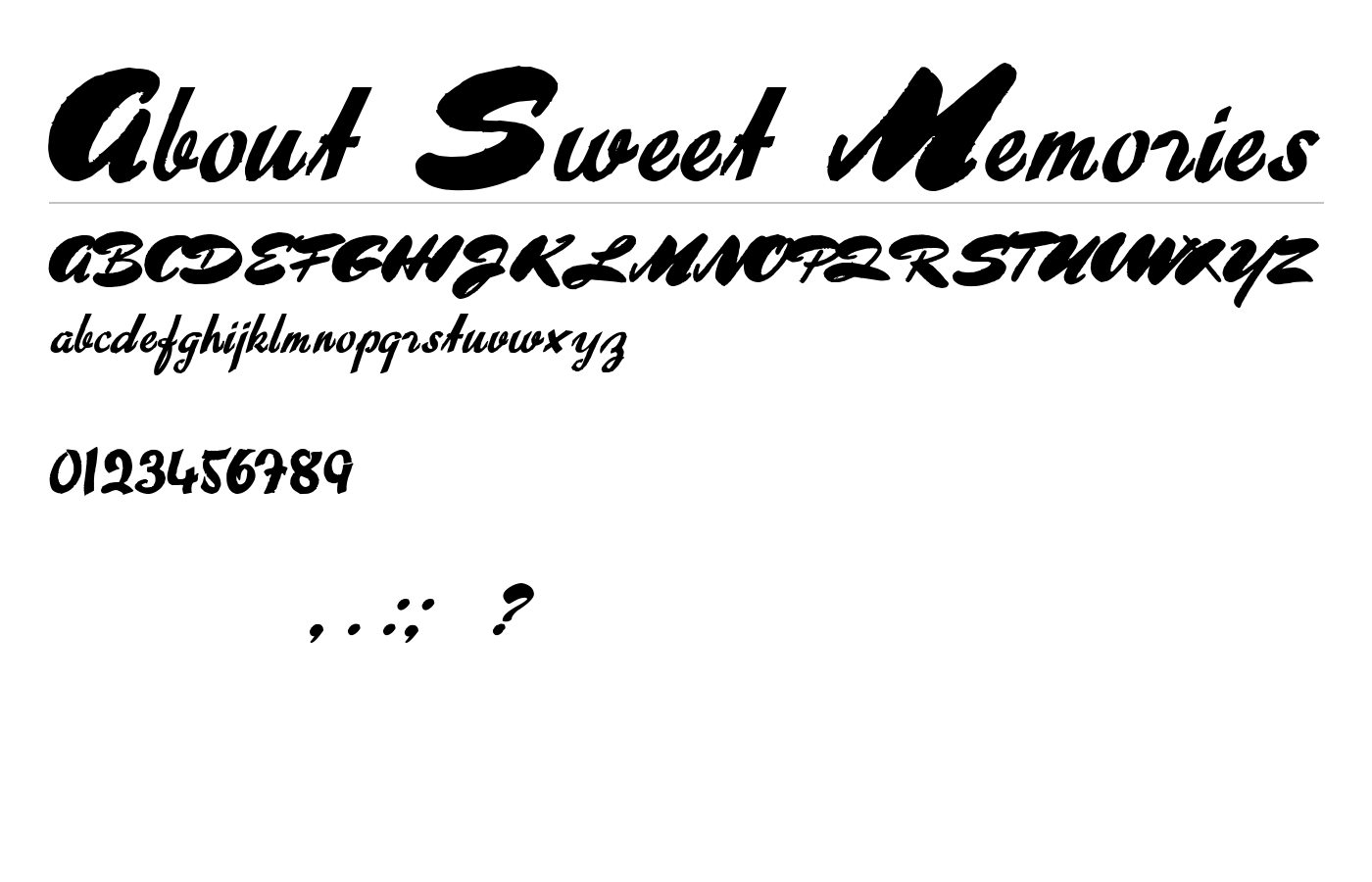
About Sweet Memories is a bold, brush-style script font with a lively and energetic feel, featuring thick and varied strokes that mimic hand-painted lettering. Its casual yet expressive character makes it perfect for creative branding, packaging, and headline designs where a personal, artistic touch is desired. This font shines in projects that seek to convey warmth, playfulness, and a handcrafted charm.
About Sweet Memories Font
About About Sweet Memories Font
| Font family | About Sweet Memories Font |